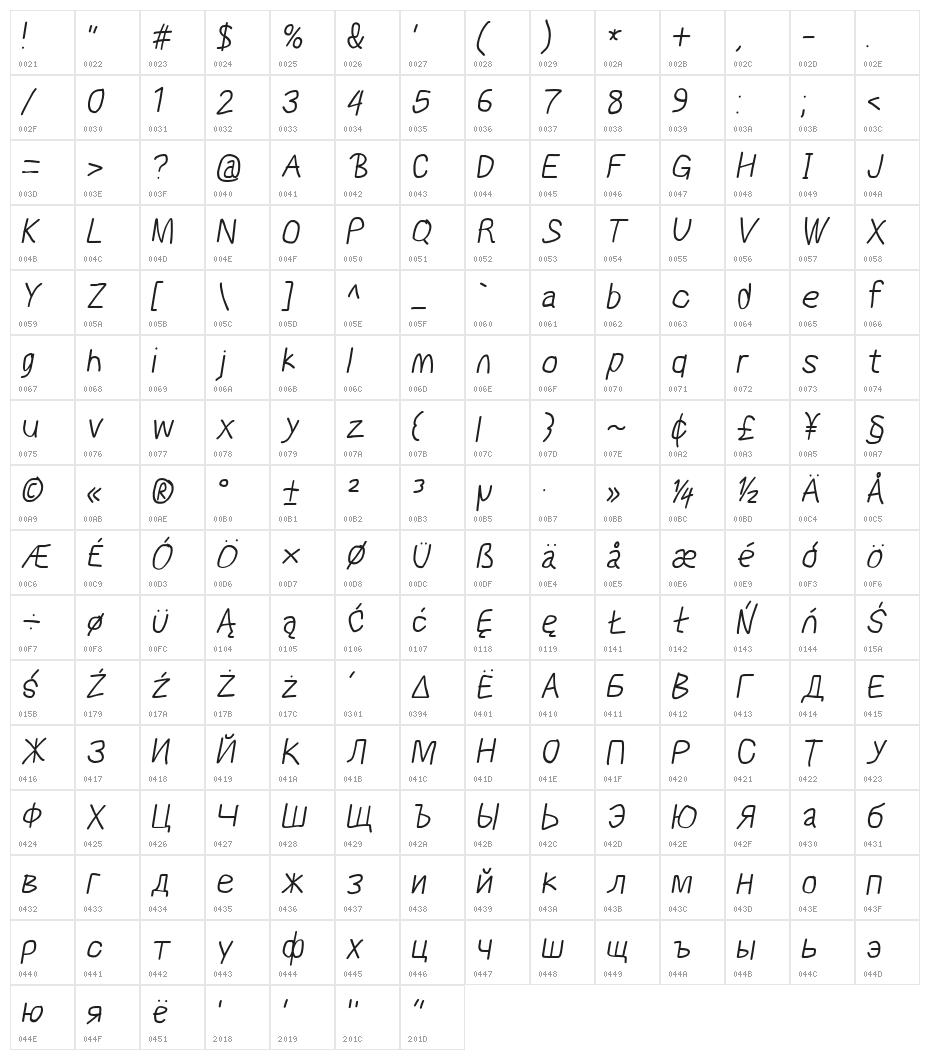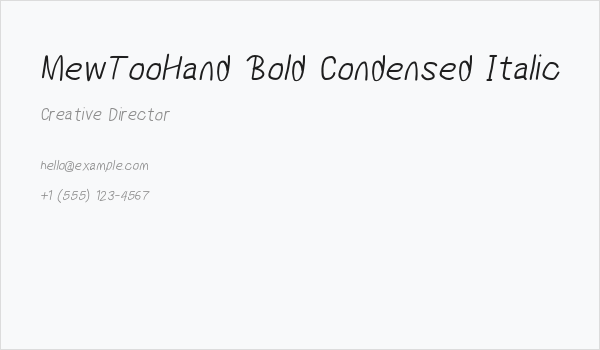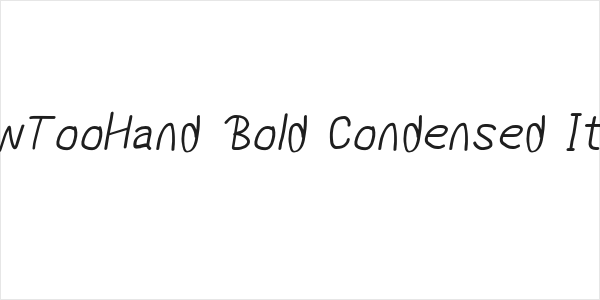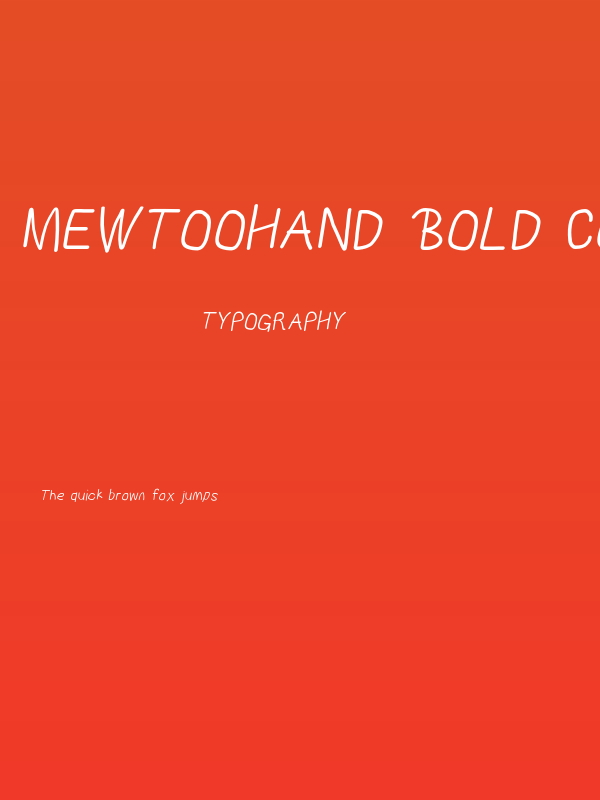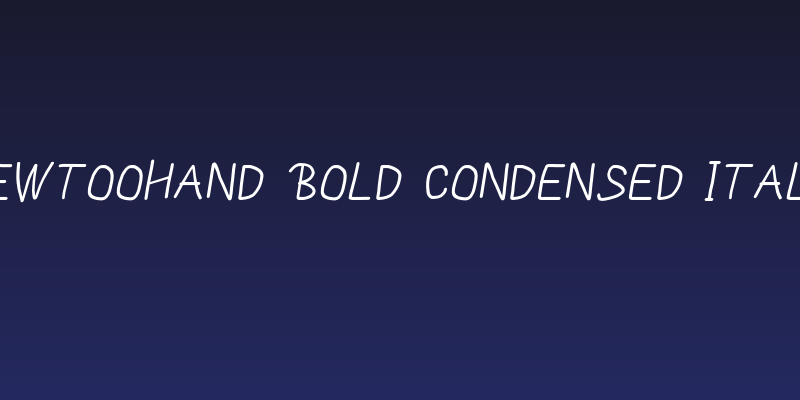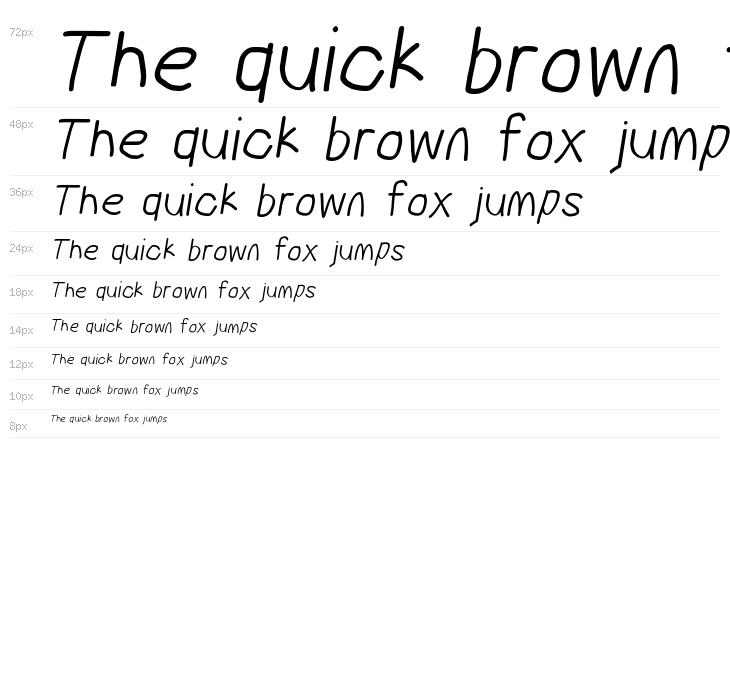
MewTooHand Bold Condensed Italic Font
MewTooHand Bold Condensed Italic Description
This font features a playful and informal style with a handwritten appearance. The letters are bold and condensed, giving them a strong presence while maintaining a casual feel. The italic slant adds a dynamic and energetic touch, making the font suitable for creative and fun projects. The strokes are consistent in thickness, providing a uniform look across all characters. The spacing between characters is tight, which enhances the compact nature of the font. Overall, this font exudes a modern and approachable vibe, perfect for projects that require a personal and friendly touch.